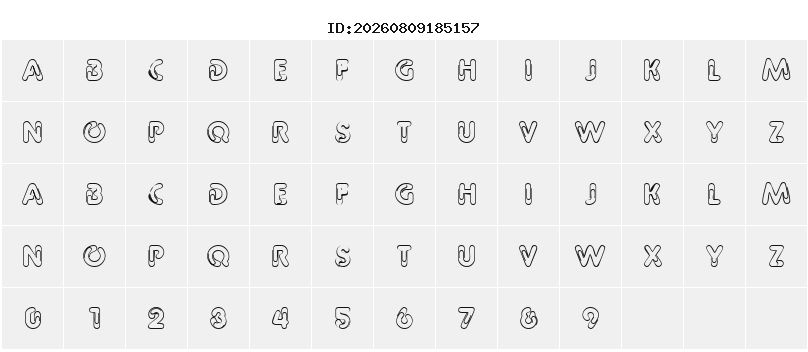
Paperbin Preview
• Font Name: Paperbin
• Full Font Name: Paperbin-Regular
About Paperbin.ttf
Paperbin.ttf is a modern, elegant sans-serif font designed for ultimate readability and visual harmony. Perfect for branding, headlines, web design, and print materials.